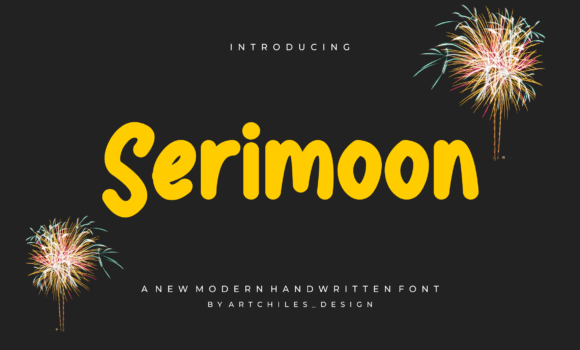
serimoon
Serimoon Font – Free Download Introduction to Serimoon Font Serimoon is a bold, handwritten font with a strong, confident style. 📸 Preview Gallery 4 images 📌 Product Name Serimoon Font 👤 Author artchiles design 📂 Category Explore ⬇️ Download Serimoon